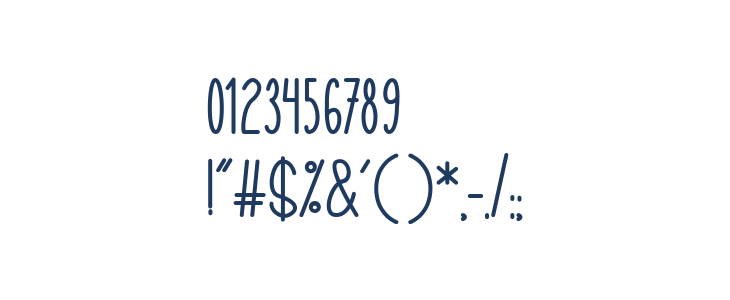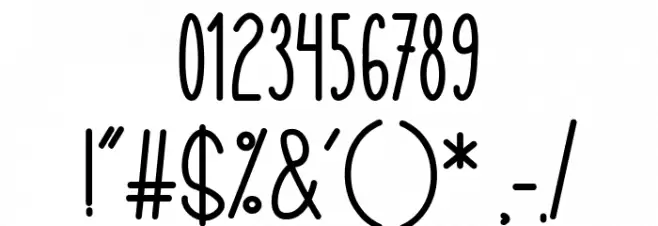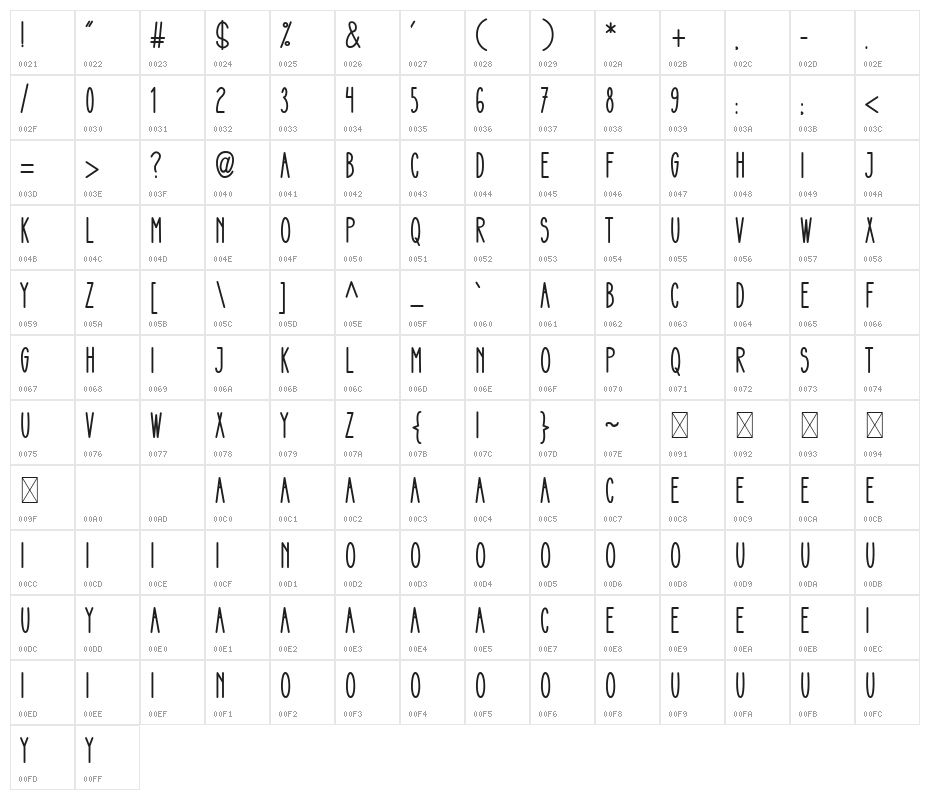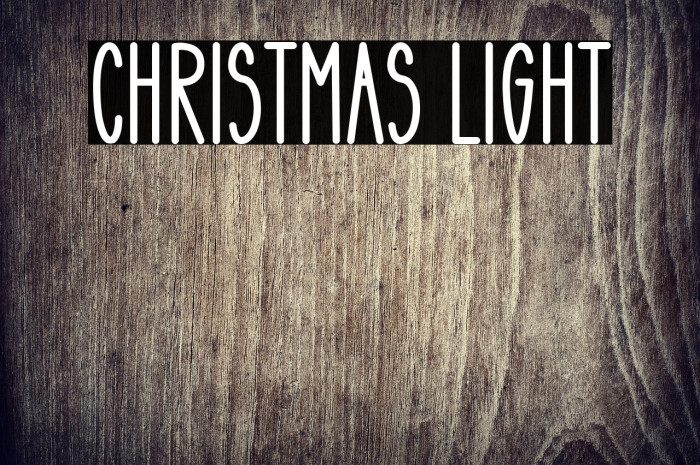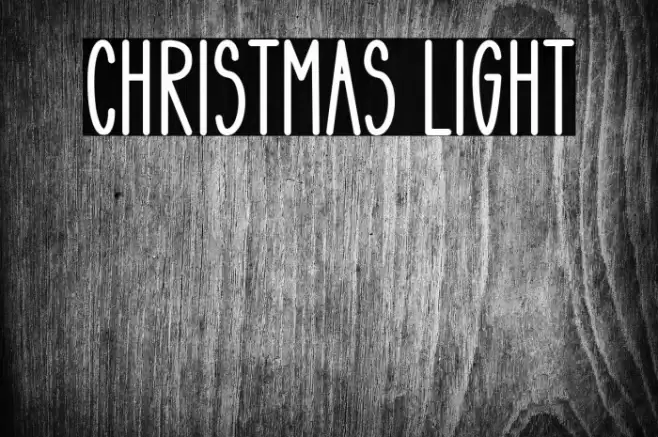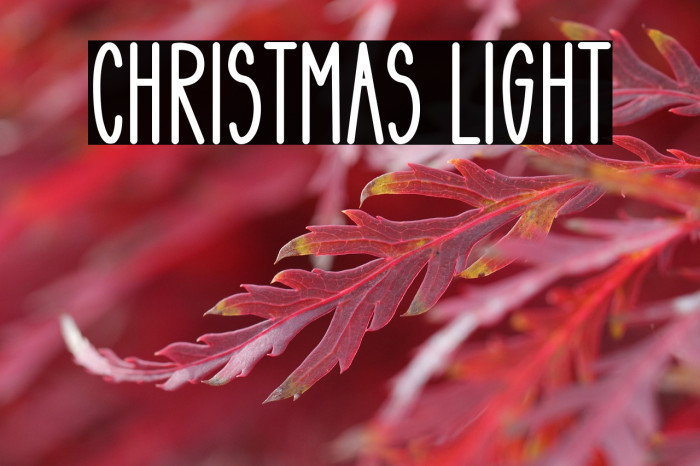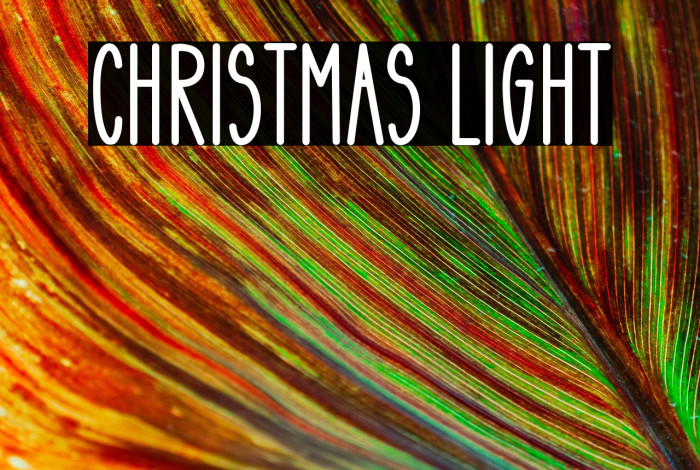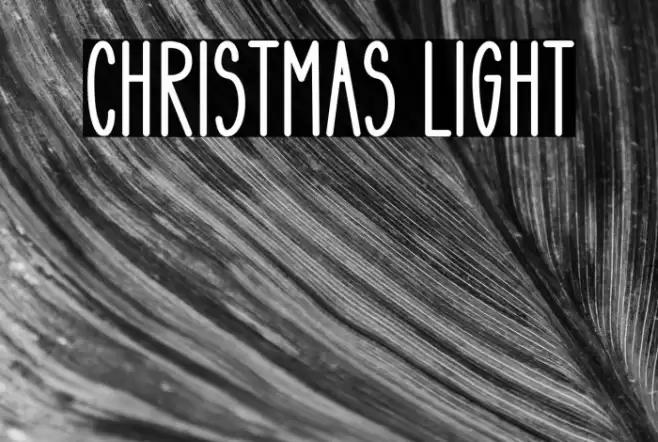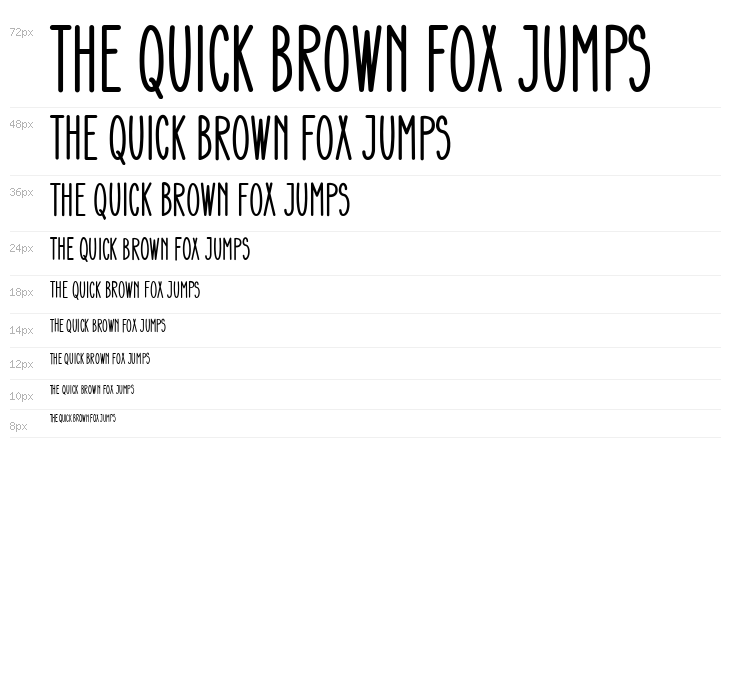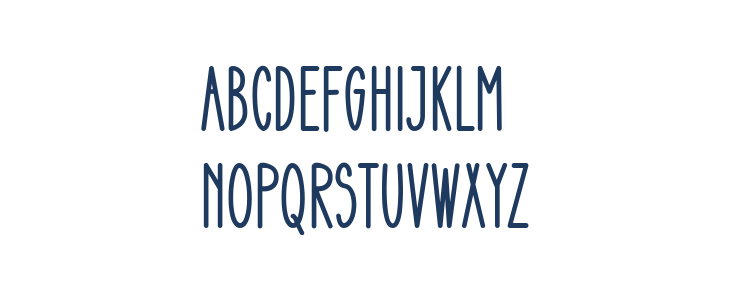
Christmas Light Font
Christmas Light Description
This font features a playful and whimsical style, characterized by tall, narrow letters with rounded edges. The strokes are consistent in width, giving it a uniform appearance. The uppercase and lowercase letters maintain a cohesive look, with a slight slant that adds a touch of movement and dynamism. The numbers and special characters are designed to match the overall aesthetic, making it suitable for festive and cheerful designs. The font's simplicity and readability make it versatile for various creative projects.
Overall StylePlayful and Whimsical
Use CaseHeadlines, Logos, Decorative Text
Proposed ProjectsIdeal for holiday-themed designs, greeting cards, festive banners, and playful branding.